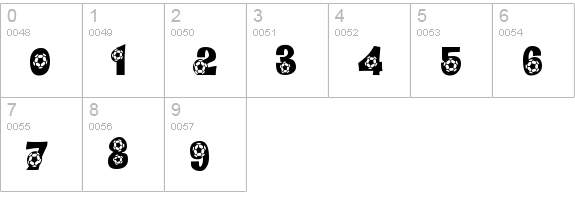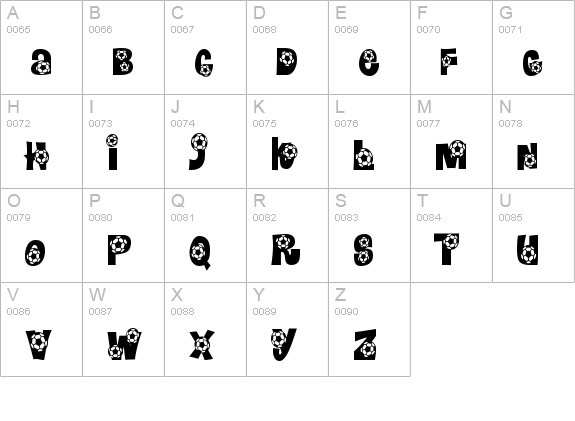
Introducing Bend It, a contemporary and stylish font that effortlessly blends modern elements with a touch of playfulness. This versatile typeface features sleek lines and unique curves that add a dynamic and energetic vibe to any project. With its bold yet approachable design, Bend It is perfect for branding, posters, logos, and more. The best part? Bend It is completely free to download! You can get your hands on this eye-catching font at FontsMarket.com and start using it in your creative endeavors today. Whether you're a designer looking to make a statement or a business in need of a fresh look, Bend It is sure to impress with its fresh and innovative style. Don't miss out on this fantastic opportunity to elevate your designs with the free Bend It font!